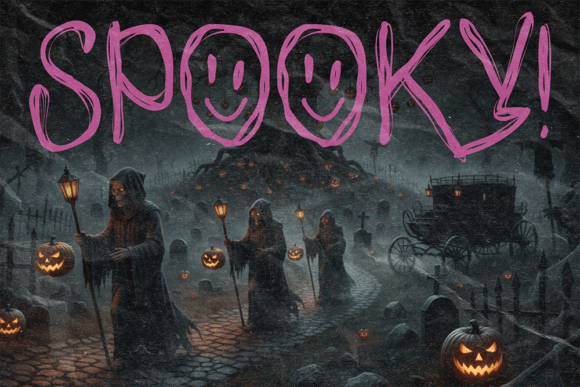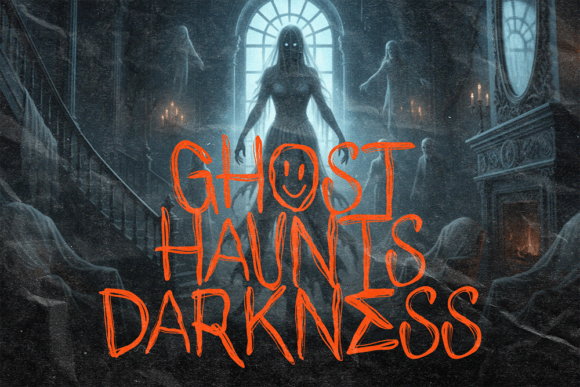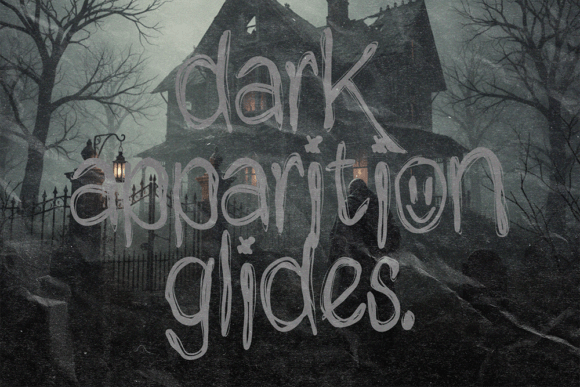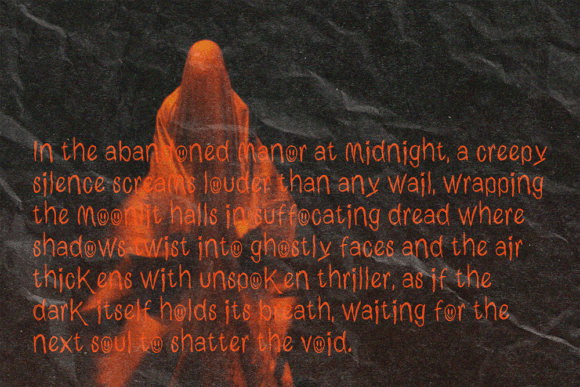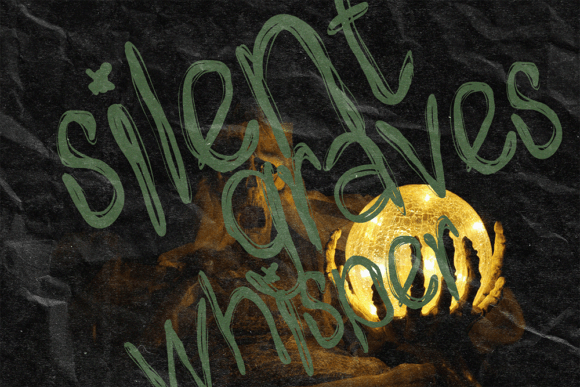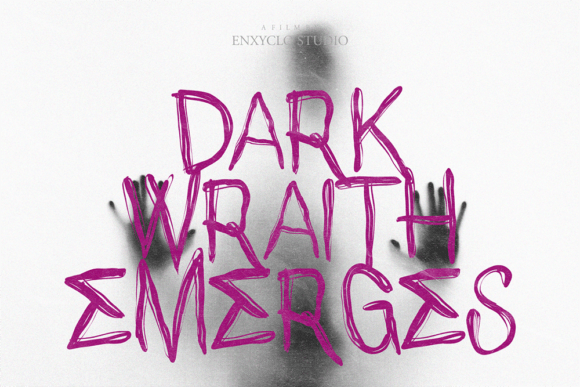
Introduction to Phantom Silence Font
As designers, we’ve all been there – staring at a blank canvas, trying to conjure up the perfect font to capture the essence of a project. For those who dare to venture into the realm of horror, the right font can make all the difference between a mere design and a spine-tingling masterpiece. And that’s where the Phantom Silence Font comes in – a bold, display typeface that’s sure to send chills down the spines of even the most seasoned designers.
Whether you’re working on a Halloween poster, a horror movie trailer, or any other creative project that demands a touch of creepiness, the Phantom Silence Font is the ultimate design resource. With its unique, chilling letterforms and high-quality design, this font is perfect for adding a touch of frightful flair to your work. And the best part? It’s available for free download, making it a must-have in every designer’s toolkit.
Key Features of Phantom Silence Font
- Phantom Silence Font offers a unique and modern aesthetic with a transparent background, perfect for adding a touch of sophistication to your designs.
- Unique characteristics include a subtle, eerie feel and a range of expressive styles, making it an excellent choice for designers seeking a distinctive look.
Honest Review: Phantom Silence Font
I recently stumbled upon the Phantom Silence Font and was excited to give it a try in my latest design project. As a designer, I’m always on the lookout for high-quality fonts that can elevate my creative work. The Phantom Silence Font did not disappoint.
What works well about this font is its versatility. It comes in a variety of weights and styles, making it perfect for any design project. The font is also super easy to use, with a seamless download process and clear instructions on how to install it. I particularly loved the fact that the font has a transparent background, which made it easy to layer it over other design elements.
- ✨ High-quality design with a range of weights and styles
- ✨ Transparent background for easy layering
One limitation of the Phantom Silence Font is that it may not be suitable for very formal or professional projects, as it has a bit of an edgy vibe to it.
Overall, I was really impressed with the Phantom Silence Font and would highly recommend it to designers looking for a free and high-quality design resource for their creative projects.
The Phantom Silence Font is a versatile design resource that can be used in a variety of creative projects. It is perfect for designing logos, business cards, and other marketing materials. It can also be used in educational and personal projects, such as presentations and documents.